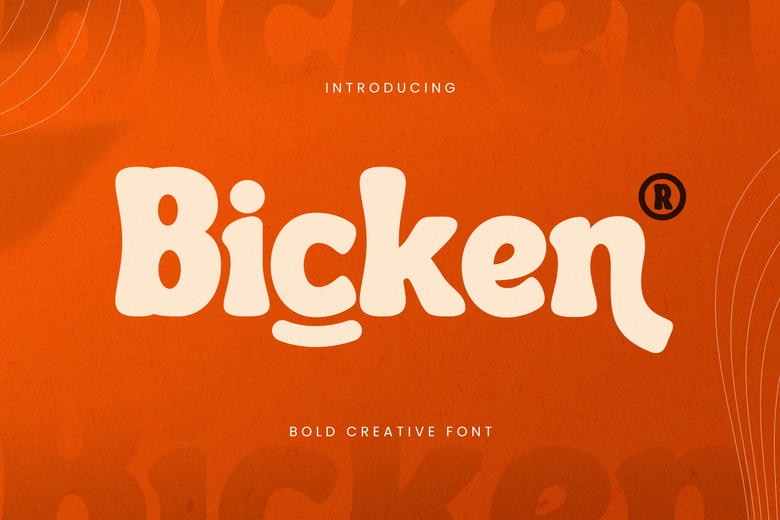
Bicken Font
Bicken – the new Bold Playful Display Font of the Salamahtype family with a sense of energy and fun in your creative work! Bicken is a clear and adventurous sans serif font with thick strokes and delicious accents which is ideal to compose a catchy, young, and dynamic graphic design logo, brand logo or poster.
This font is versatile and informal which will help make it perfect for brands, for campaigns, and for designs that will be attention-grabbing. Regardless of the purpose of your design – be it a unique logo or a playful advertisement, Bicken works great in each case.
It’s not just limited to the fun, animated demeanor and easily adaptable look, but you’ll always get work that is invigorating and interesting. Include Bicken and its daring appeal to your collection and let the graphics make your creations memorable.
Bicken Display Font